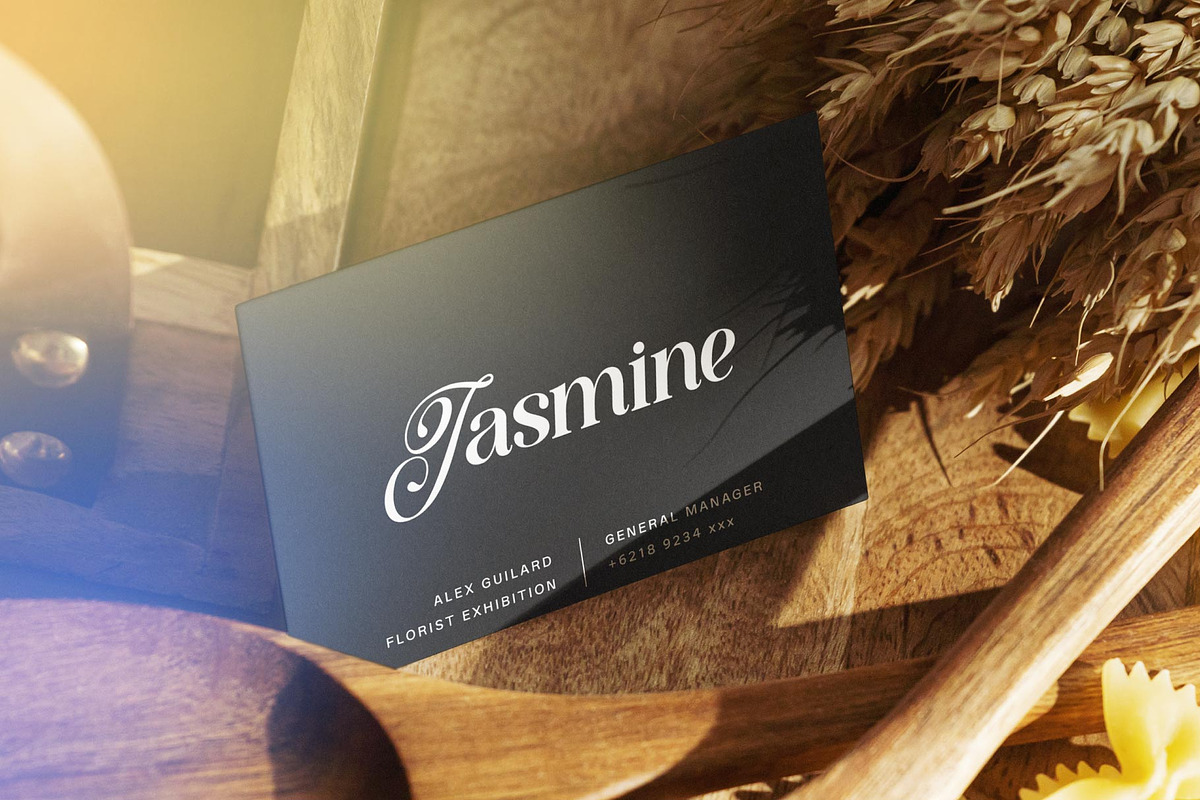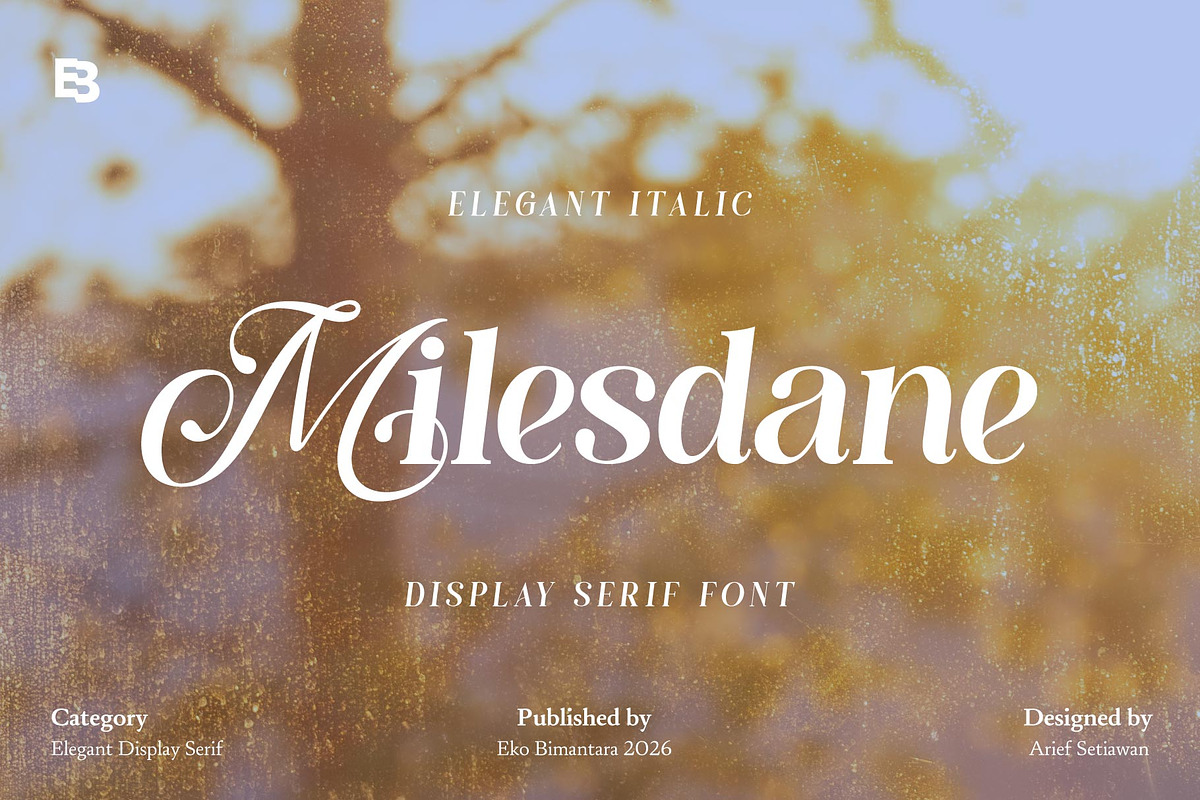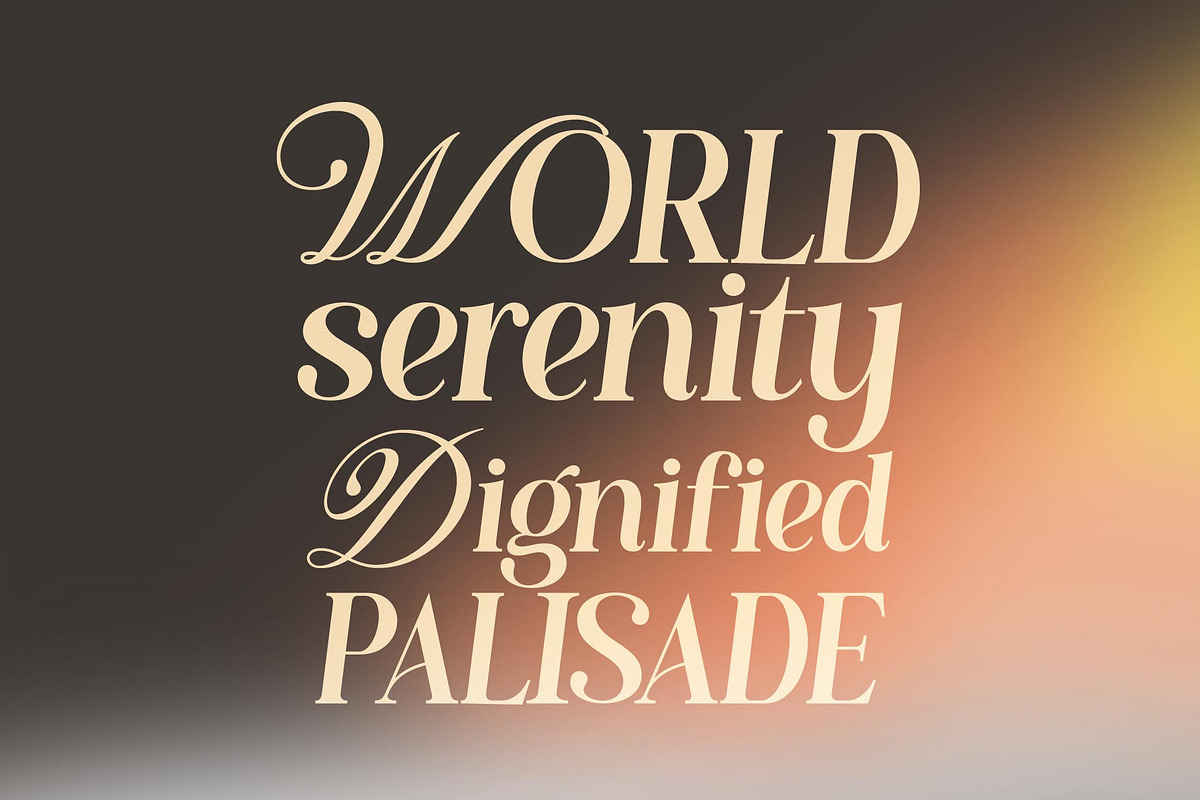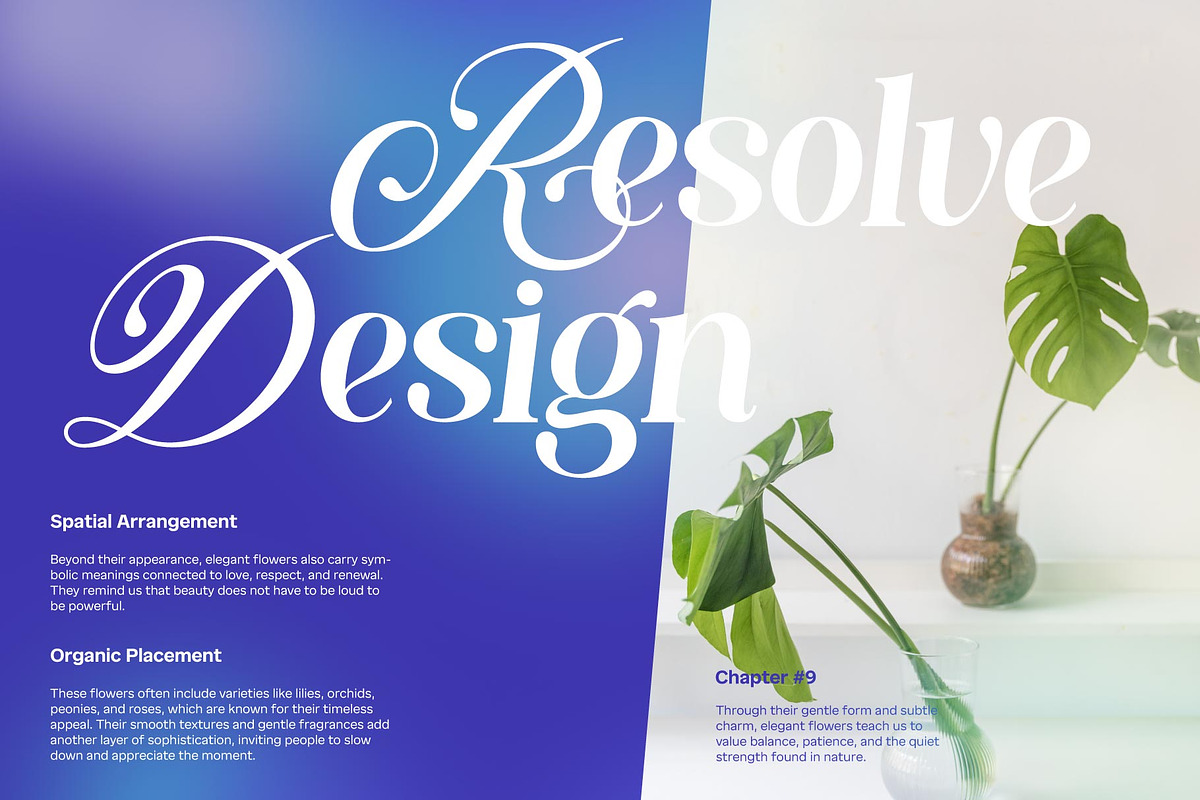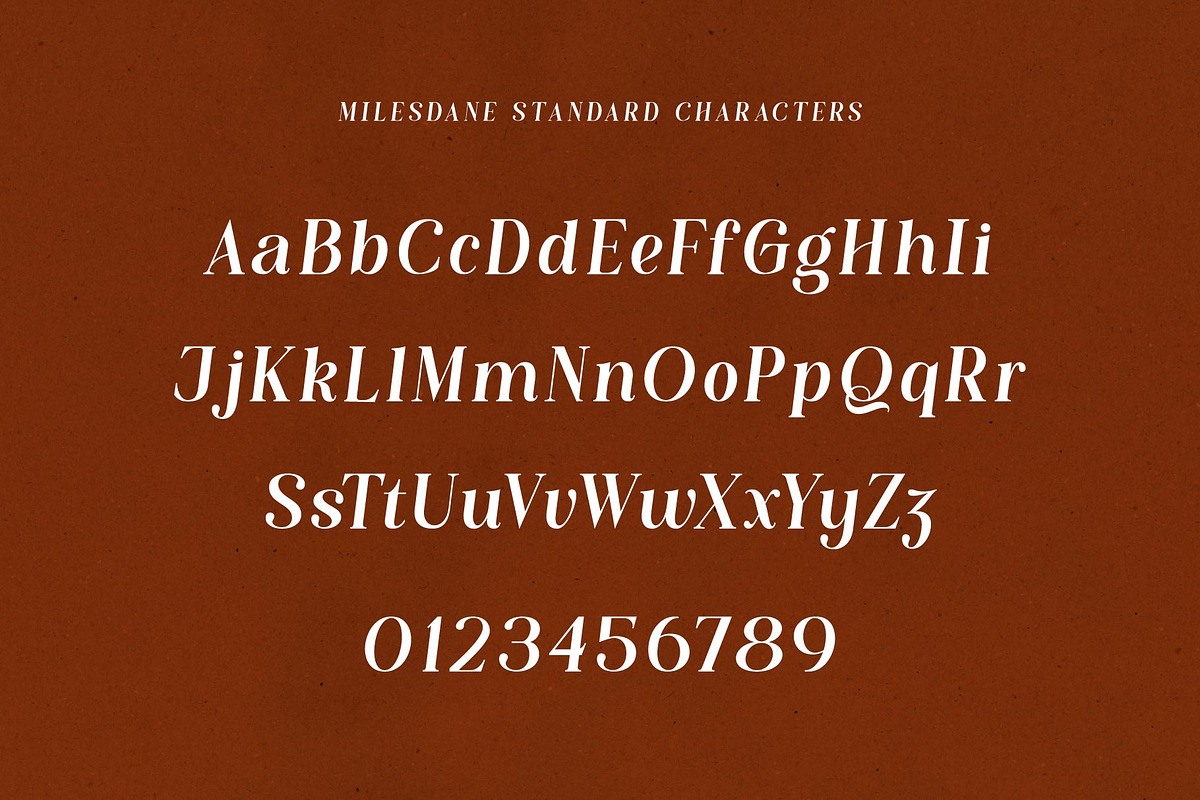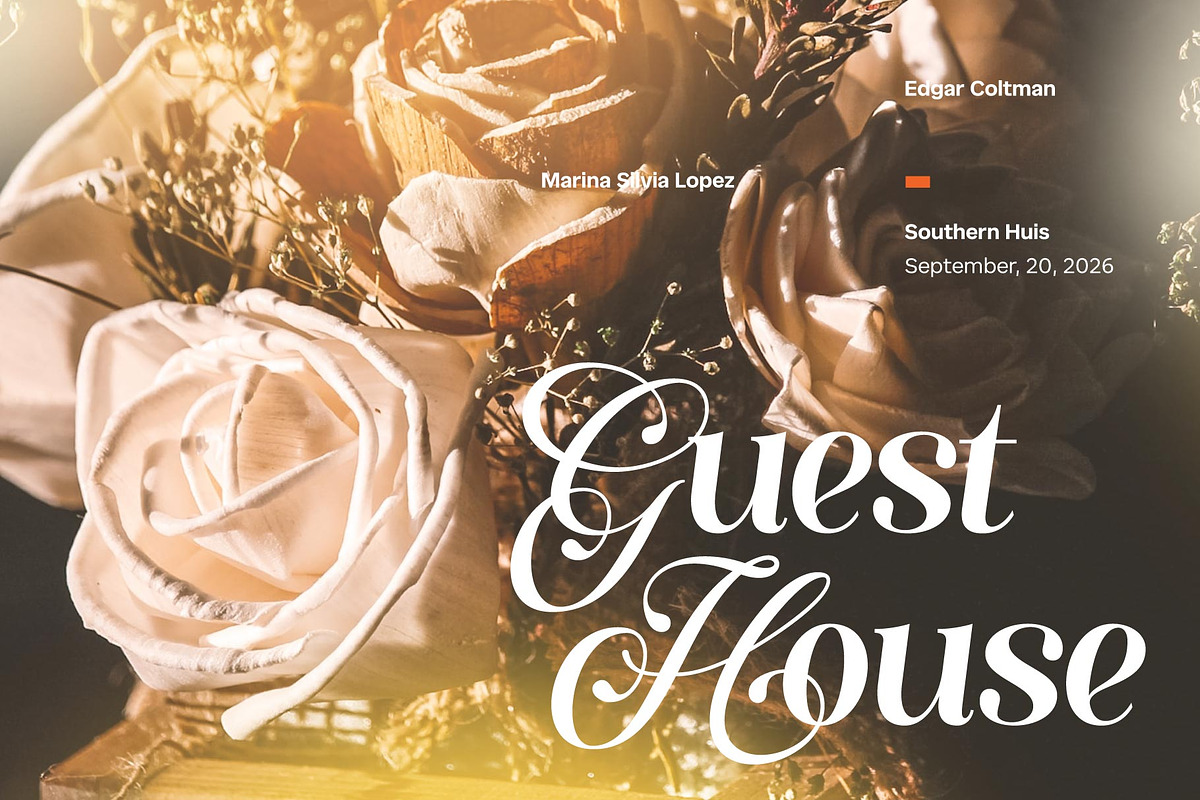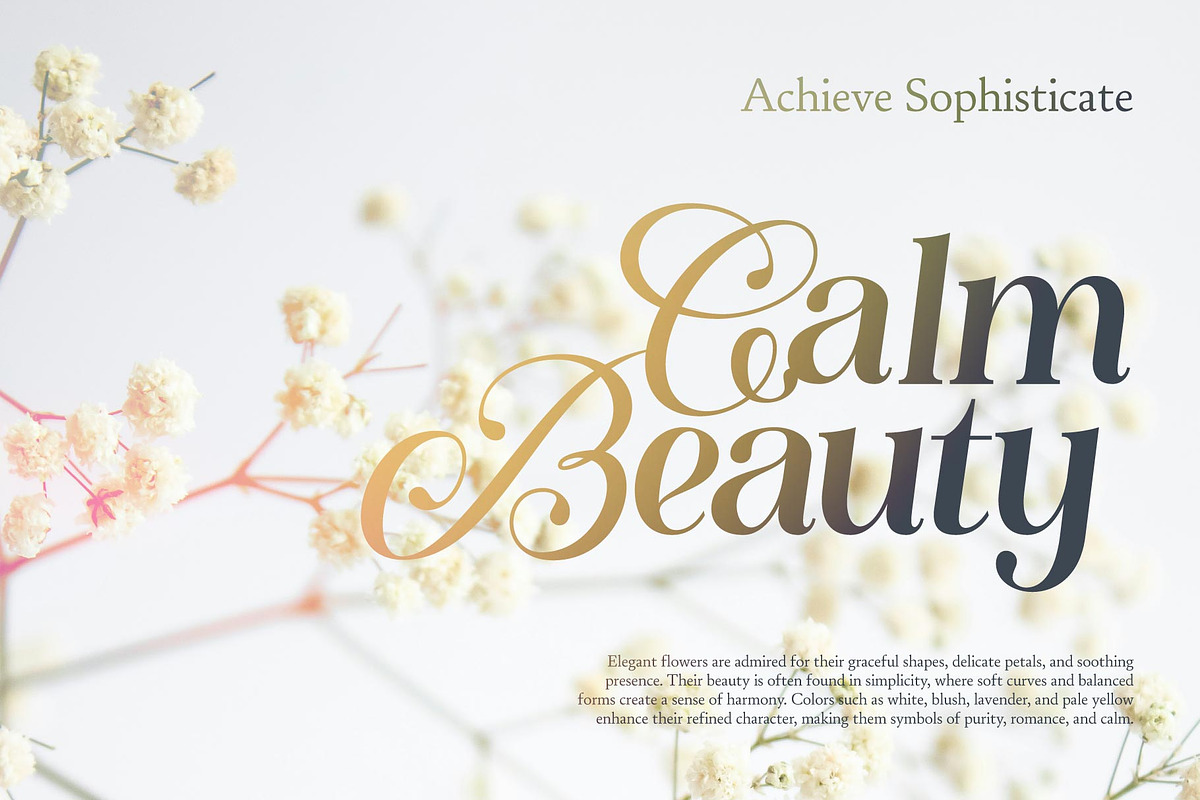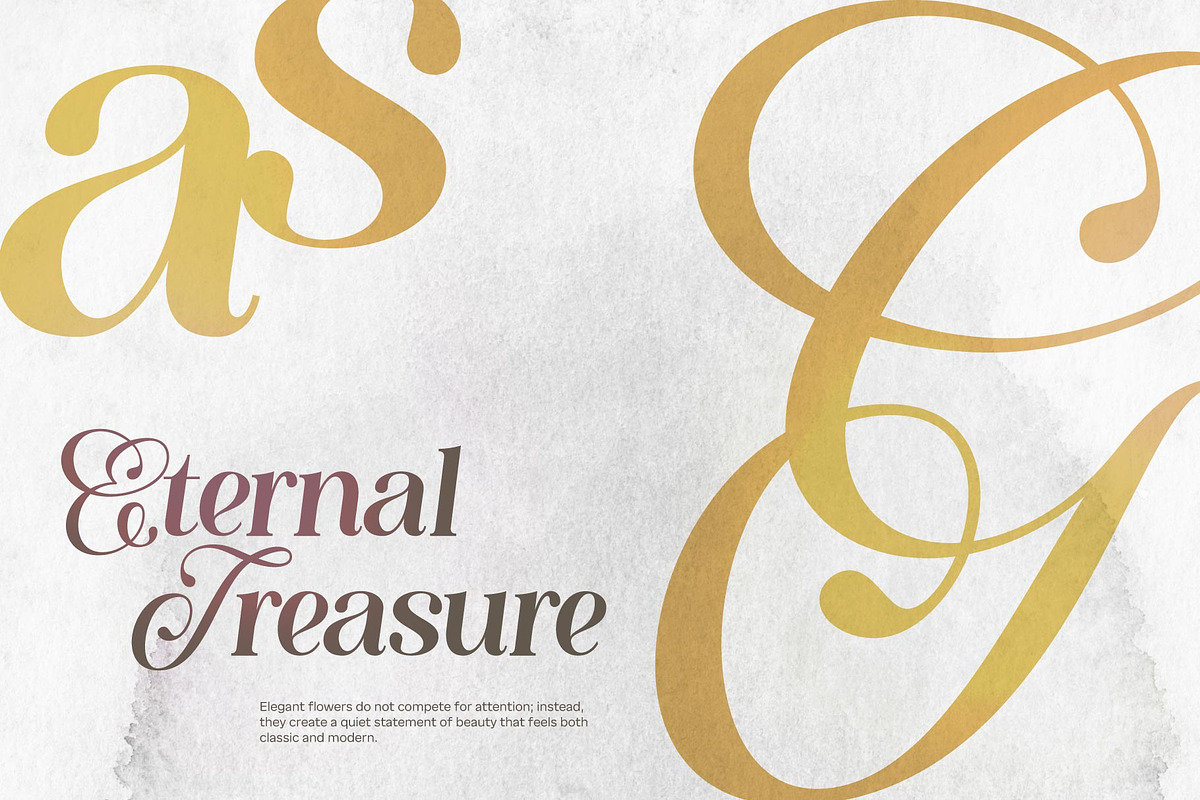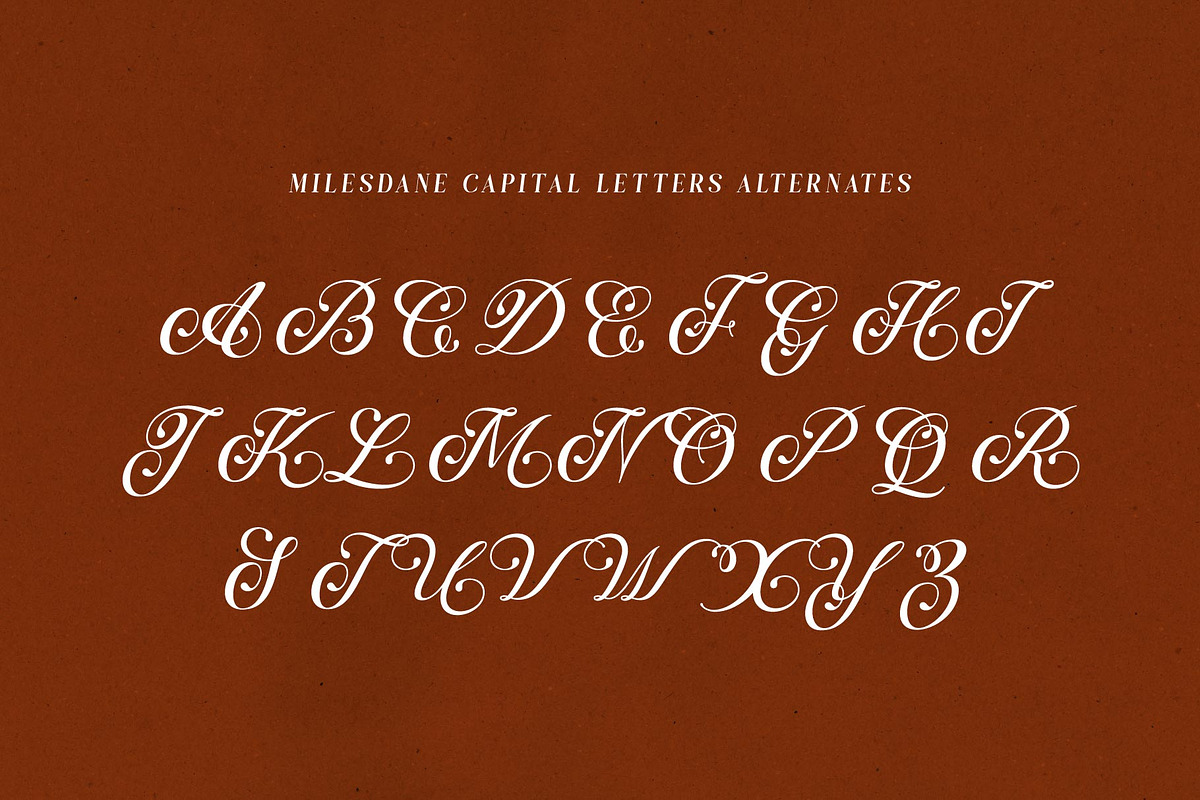
Milesdane; Italic Display Serif
Milesdane is a classy and beautiful display italic serif font featuring well-designed letterforms with graceful curves and refined proportions that convey elegance and sophistication. Its elegant capital alternates add a decorative touch for expressive and luxurious typography. Milesdane is ideal for beauty branding, feminine designs, web use, headers, titling, and a wide range of creative projects that require a stylish and polished visual identity.